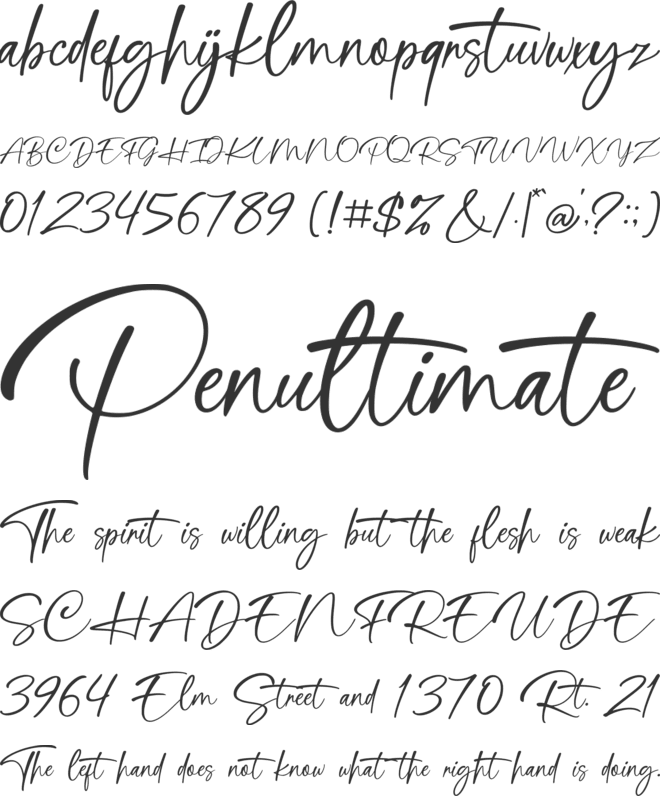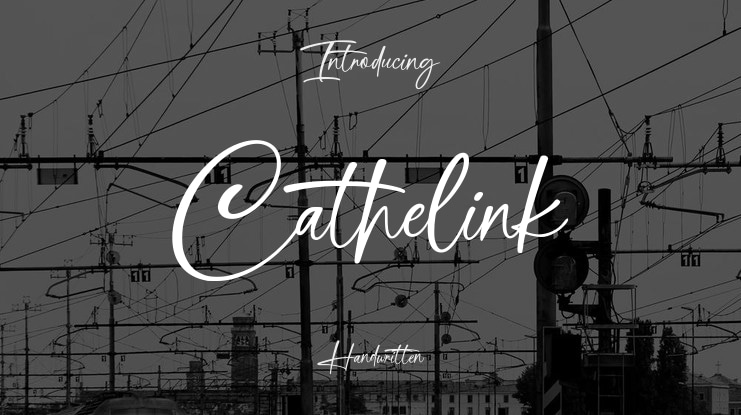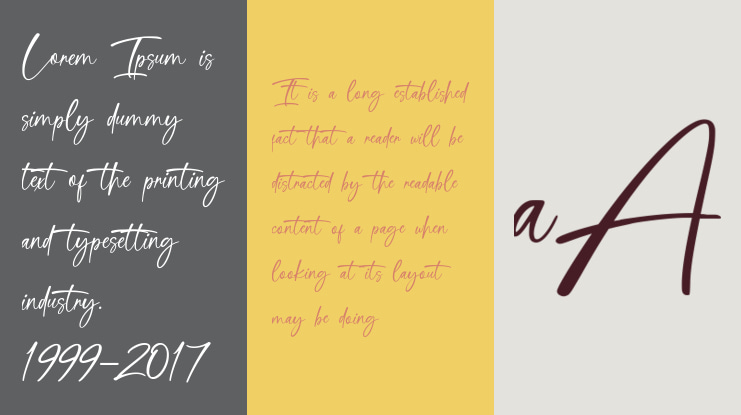
Cathelink Font
Introducing Cathelink a Handwritten Font that adds a elegant, versatile touch to everything from branding and social media to invitations and packaging.